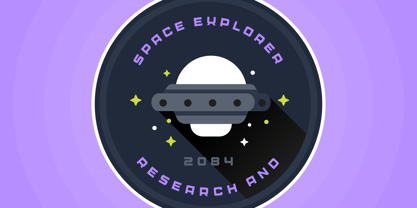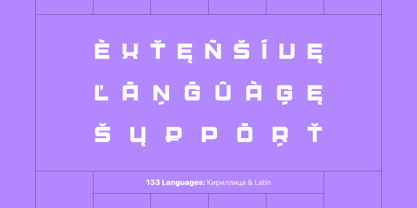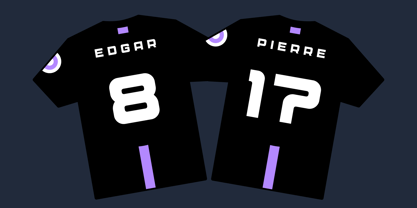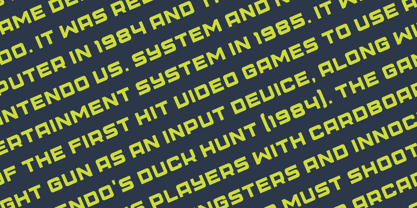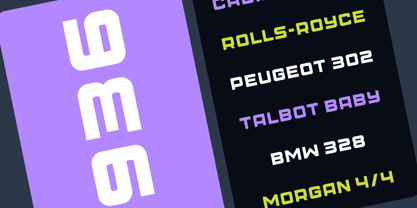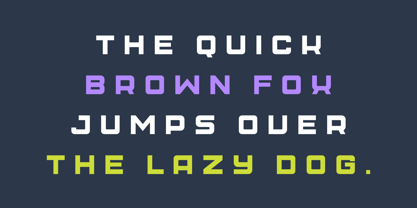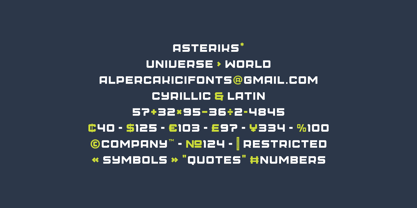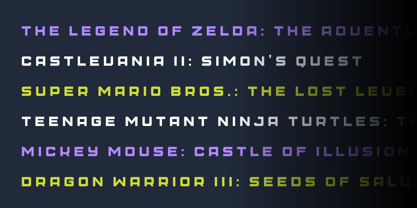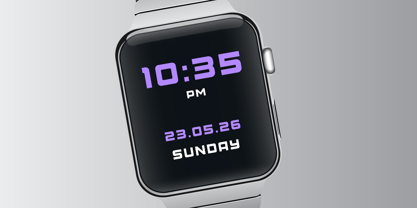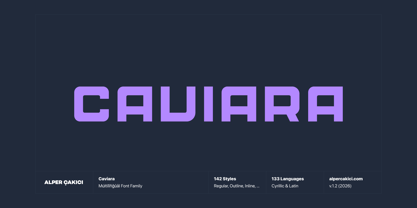
Caviara
The Caviara Font Family was designed by Alper Çakıcı and published by AlperCakici. Caviara contains 1 styles.
Caviara is a modern, versatile and an elegant font with excellent kerning, making it ideal for both digital and print use. It features full support for the Cyrillic language, allowing for seamless multilingual communication. Caviara's unique design combines classic proportions with a contemporary feel, making it stand out from other same categories fonts.